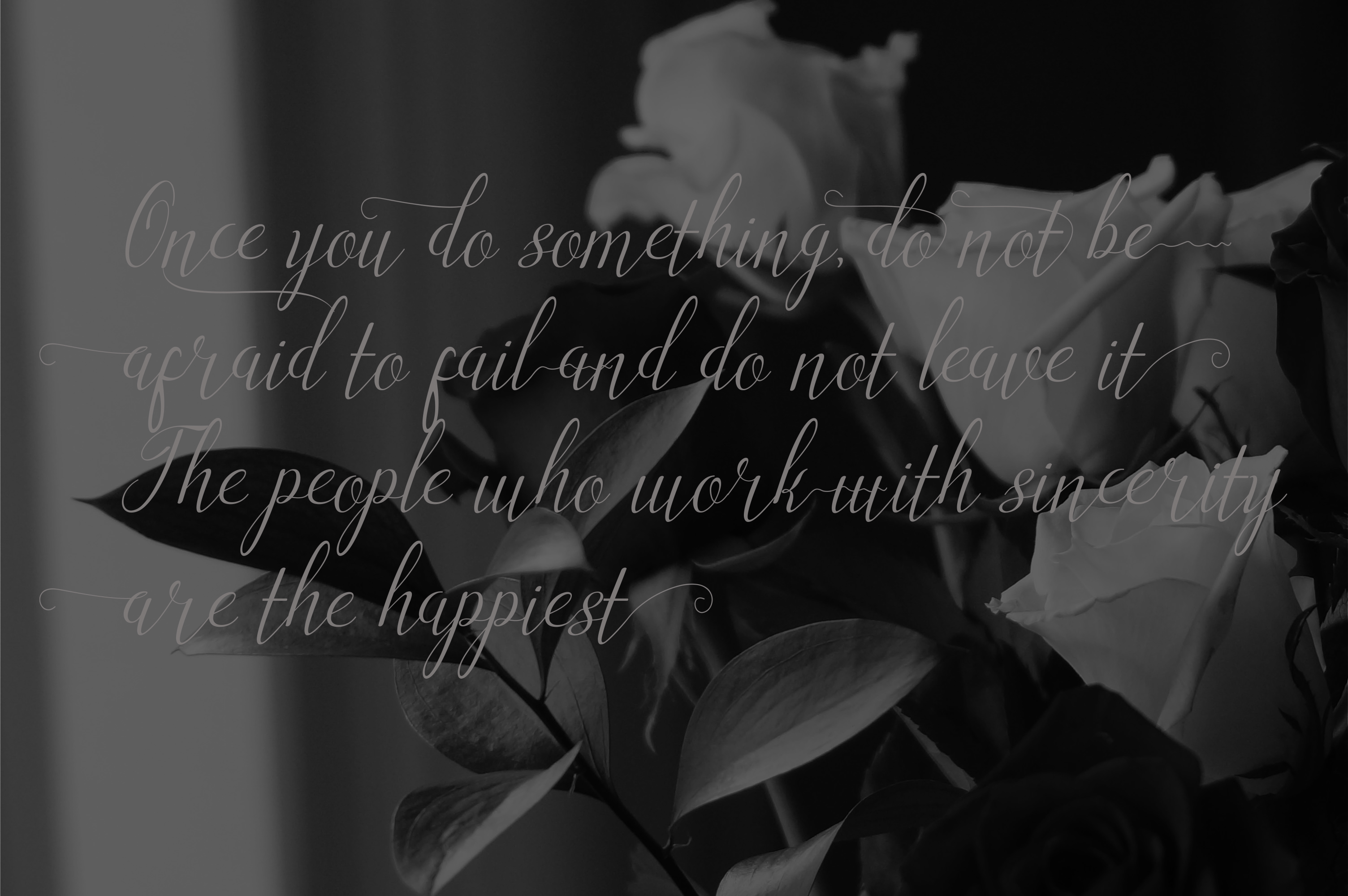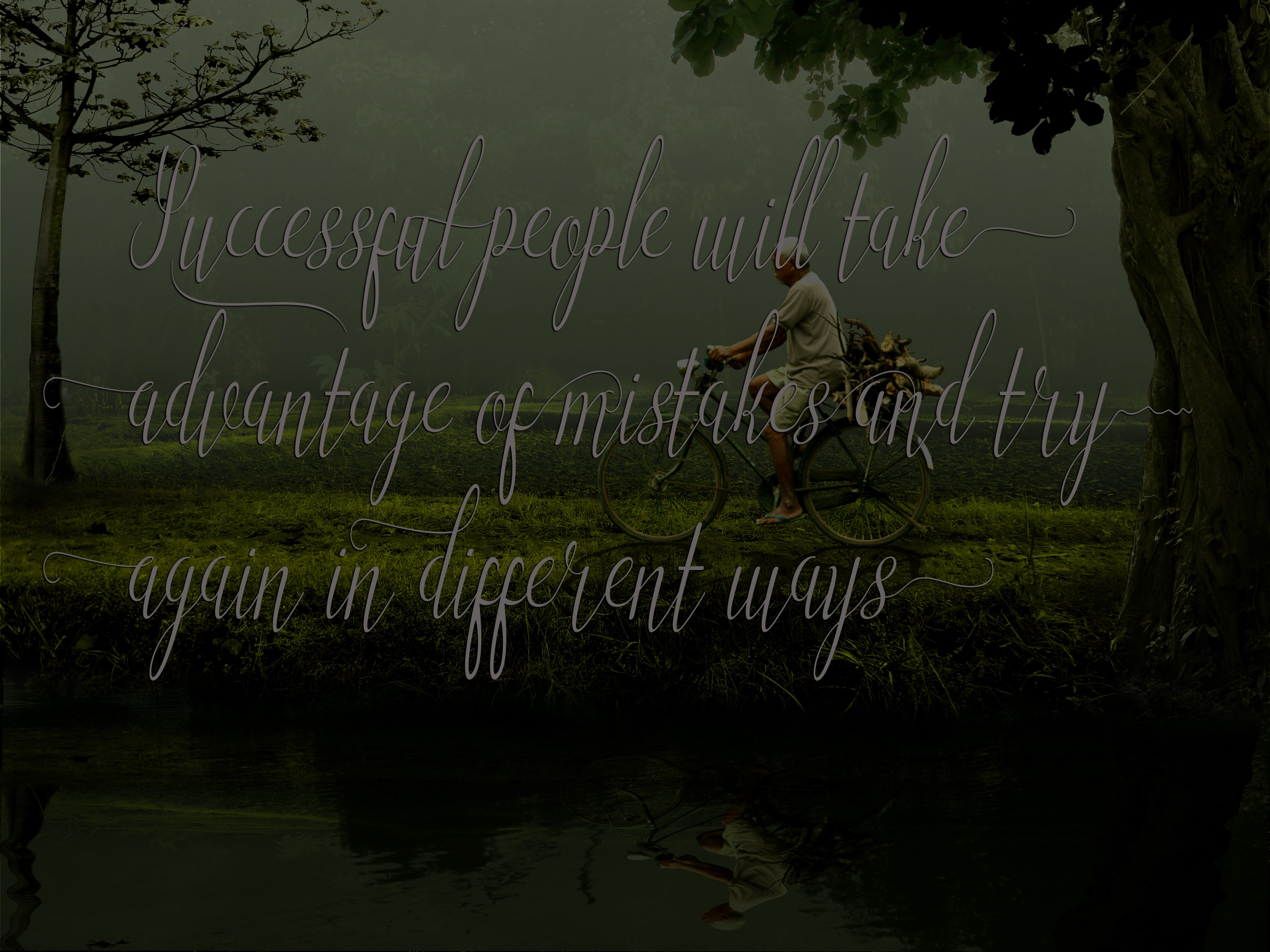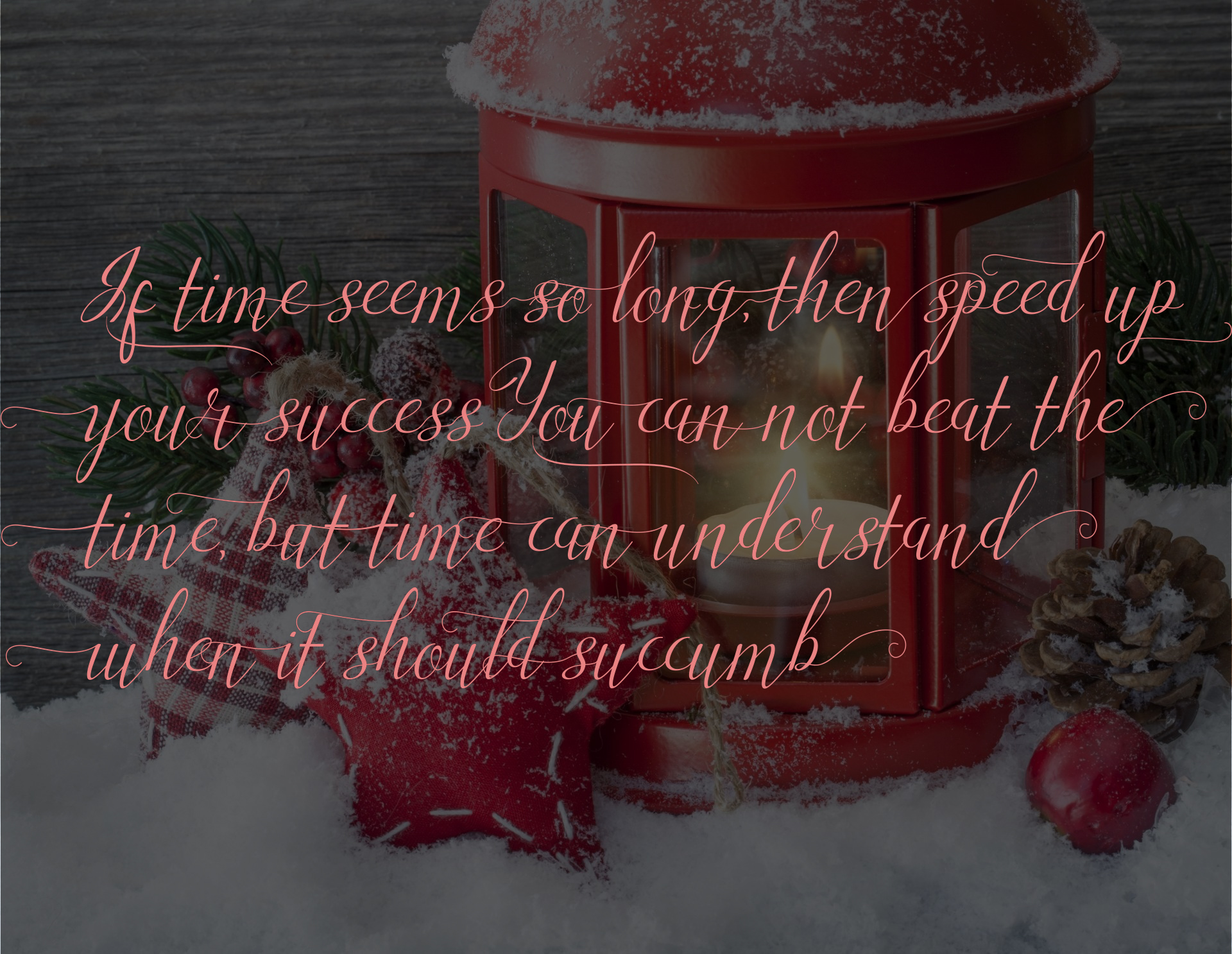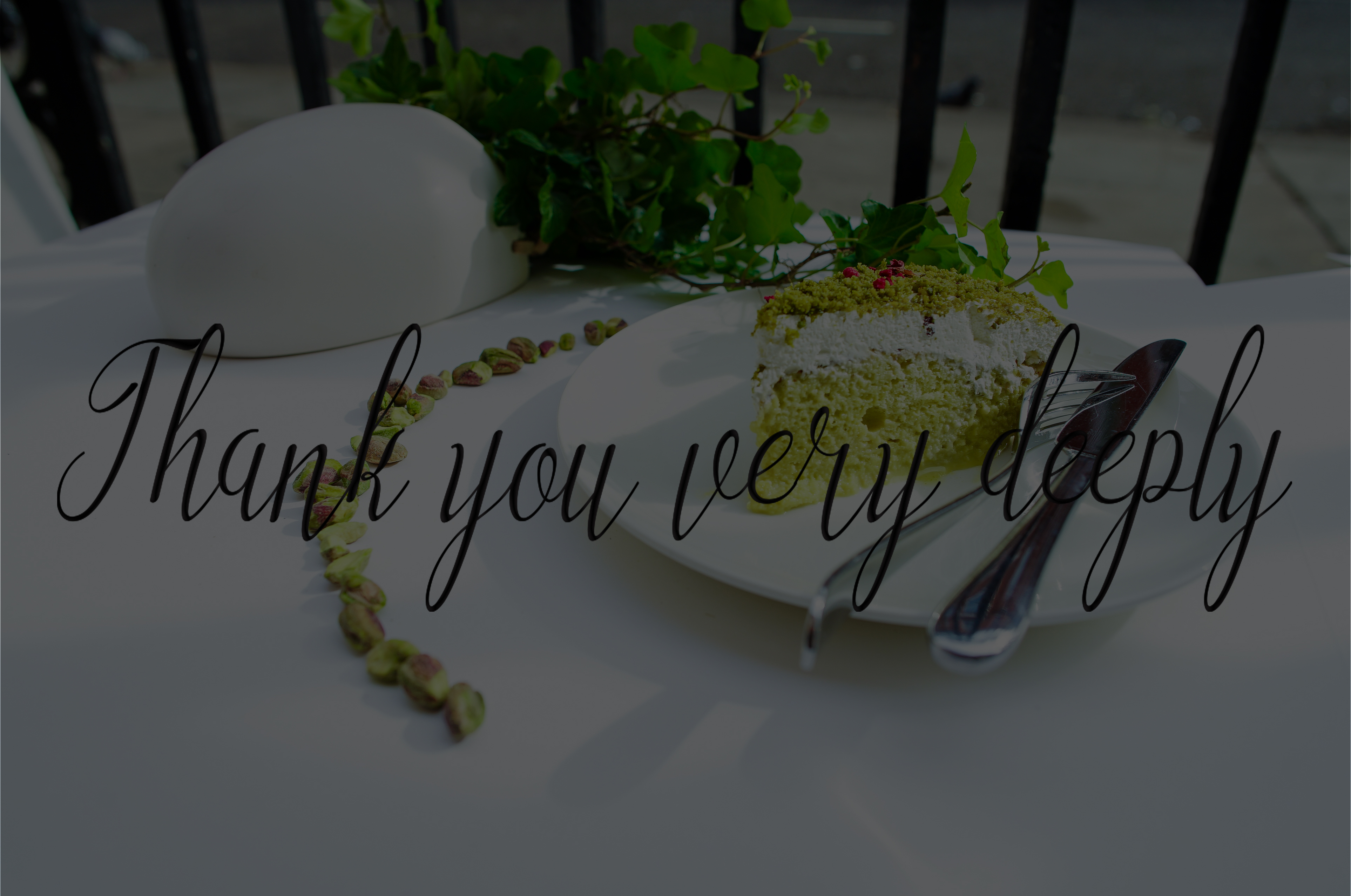
Introducing Angelonia: A Stunning Modern Calligraphy Font by Imun Studio
In the world of typography, few fonts manage to capture the essence of elegance and sophistication as beautifully as Angelonia. This modern calligraphy font, meticulously crafted by hand by the talented team at Imun Studio, has been making waves in the design community for its unique blend of classic charm and contemporary flair. Whether you’re a seasoned designer, a passionate crafter, or simply someone who appreciates the art of beautiful lettering, Angelonia is sure to captivate your imagination and inspire your creativity.
The Story Behind Angelonia
Angelonia’s journey began with a vision to create a font that embodies the perfect balance between traditional calligraphy and modern design sensibilities. Imun Studio, known for their attention to detail and commitment to quality, embarked on this project with a clear goal in mind: to produce a font that not only stands out for its aesthetic appeal but also offers versatility and practicality for a wide range of applications.
The team at Imun Studio poured their heart and soul into Angelonia, carefully crafting each letter by hand to ensure a fluid, natural look that exudes elegance and sophistication. The result is a font that is not only visually stunning but also highly legible, making it an excellent choice for various design projects, from wedding invitations and branding materials to digital content and craft patterns.
Key Features of Angelonia
So, what makes Angelonia stand out from the crowd? Here are some of its key features that have designers and crafters buzzing:
• Hand-crafted with love: Every letter in Angelonia has been meticulously designed by hand, giving the font a personal touch that’s hard to find in digital typography.
• Modern calligraphy style: Angelonia boasts a beautiful, modern calligraphy style that’s perfect for designs that require a touch of elegance and sophistication.
• Highly versatile: Whether you’re working on a wedding invitation, a brand logo, or a craft pattern, Angelonia’s versatility ensures it can adapt to any design need.
• Excellent legibility: Despite its elegant appearance, Angelonia doesn’t compromise on readability, making it suitable for both digital and print applications.
Uses of Angelonia
Angelonia’s range of applications is vast and varied, limited only by your imagination. Here are some popular uses of this stunning font:
• Wedding and event planning: Create beautiful wedding invitations, place cards, and event signage that exude romance and sophistication.
• Branding and marketing: Elevate your brand with a touch of elegance, using Angelonia for logos, packaging, and promotional materials.
• Crafting and DIY projects: Add a personal touch to your craft patterns, labels, and instructions with Angelonia’s charming calligraphy.
• Digital content: Enhance your blog posts, social media graphics, and digital newsletters with a font that’s sure to capture your audience’s attention.
Angelonia by Imun Studio is more than just a font; it’s a tool for designers and crafters to add a touch of elegance and sophistication to their work. With its modern calligraphy style, versatility, and excellent legibility, Angelonia is poised to become a favorite among creative professionals and hobbyists alike. Whether you’re looking to elevate your brand, create stunning wedding invitations, or simply add some flair to your craft projects, Angelonia is an excellent choice. So why wait? Dive into the world of Angelonia today and discover how this beautiful font can transform your designs.